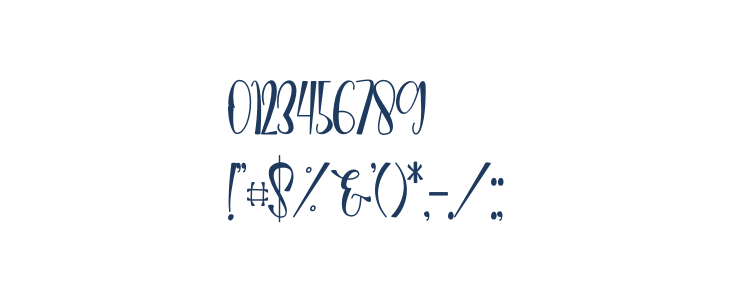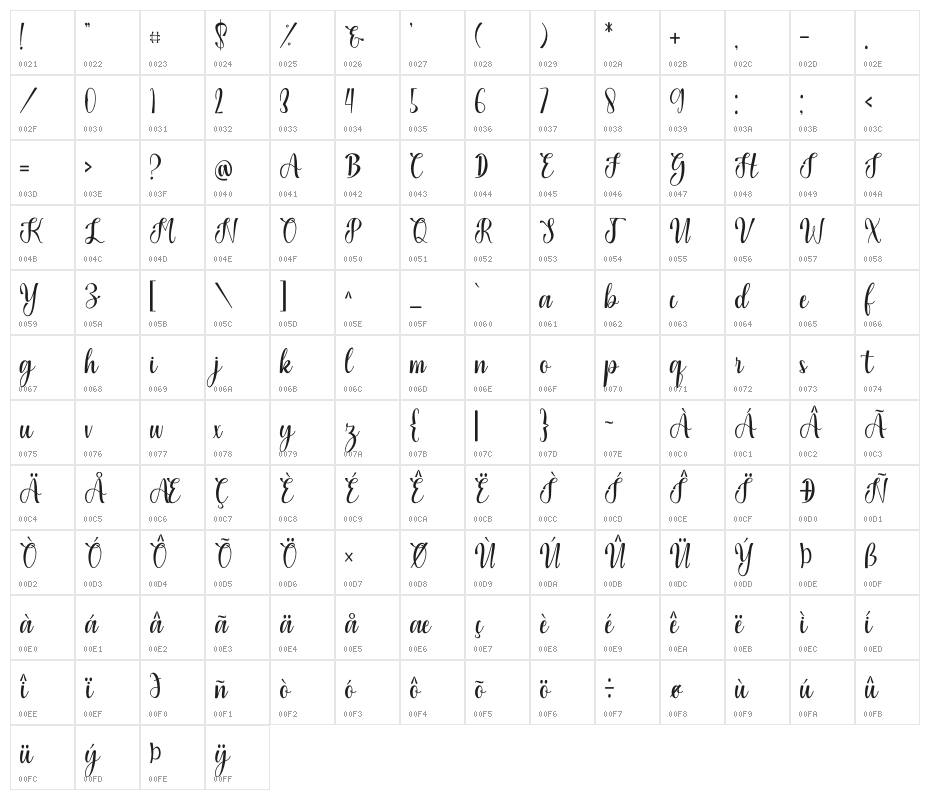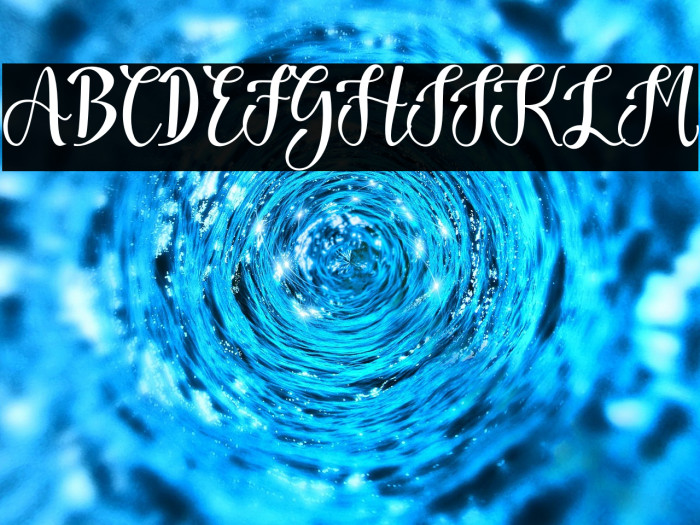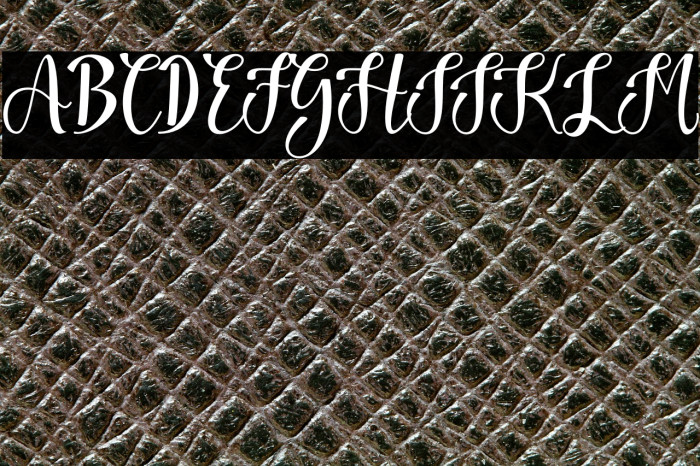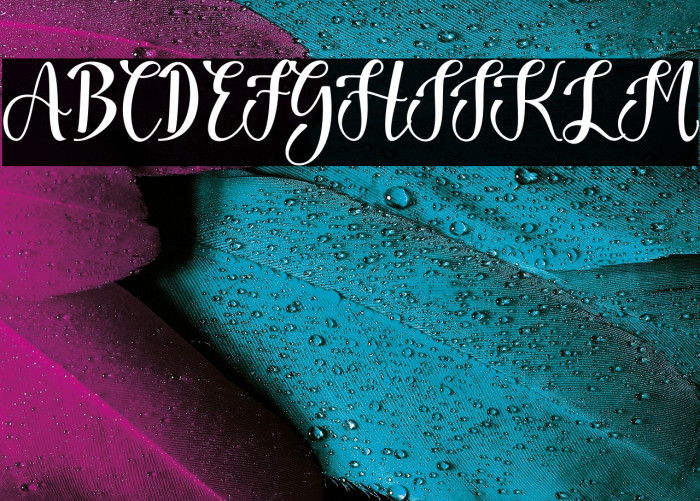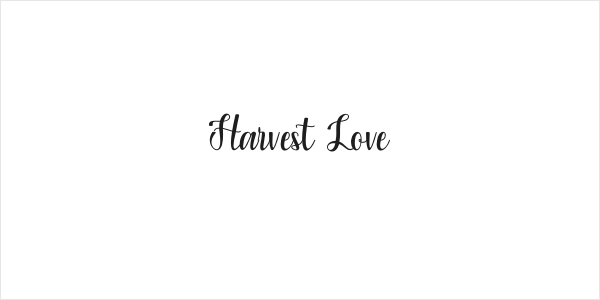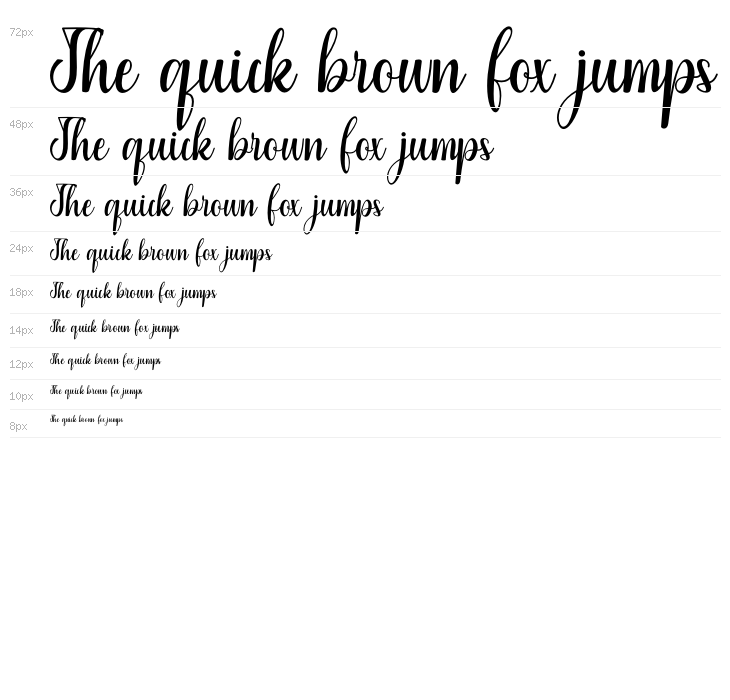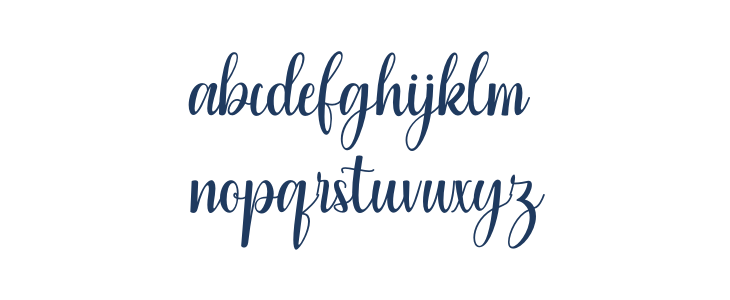
Harvest Love Font
Harvest Love Description
This font exudes a charming and elegant script style, characterized by its flowing, cursive letterforms. The uppercase letters are ornate, with sweeping curves and flourishes that add a touch of sophistication. The lowercase letters maintain a consistent flow, enhancing readability while retaining a decorative flair. Numbers and special characters are crafted with the same attention to detail, ensuring a cohesive look across all elements. The overall design is both playful and refined, making it suitable for a variety of creative applications.
| Use Case | Logos, Invitations, Decorative Text |
| Proposed Projects | Ideal for wedding invitations, greeting cards, branding projects, and elegant packaging designs. |